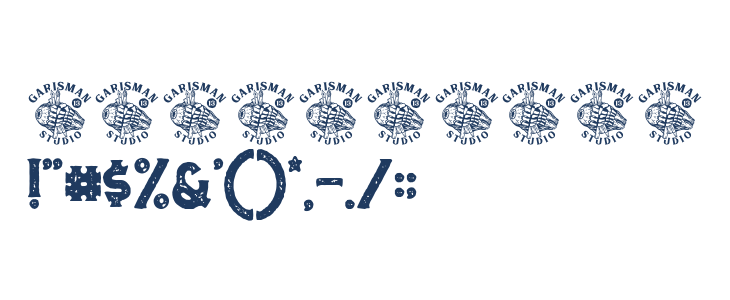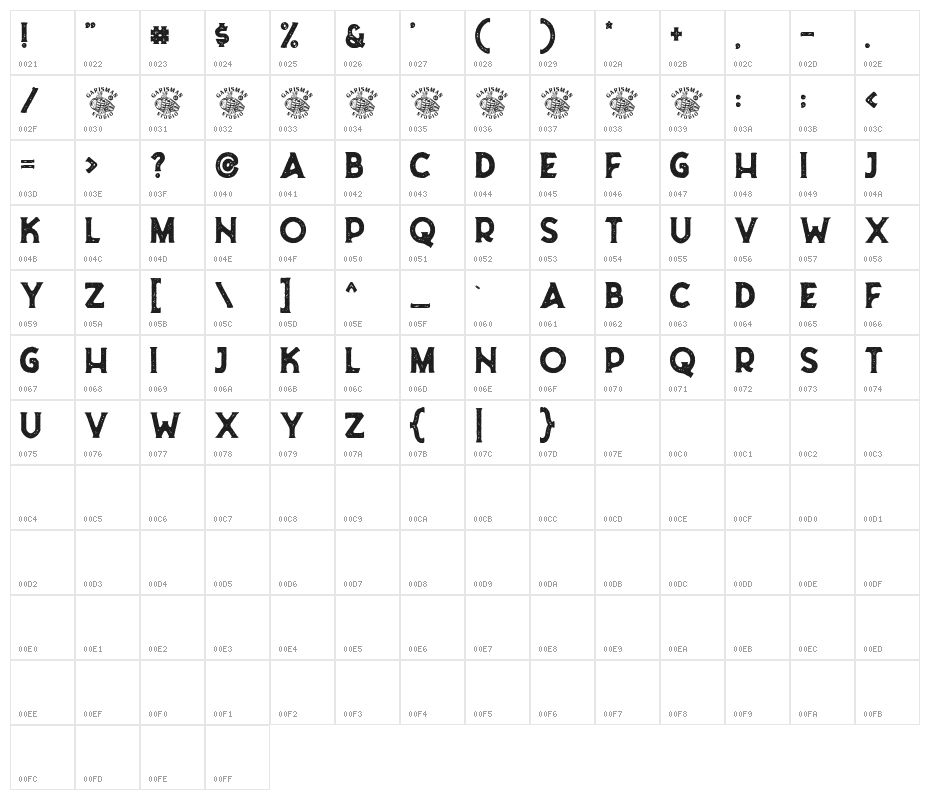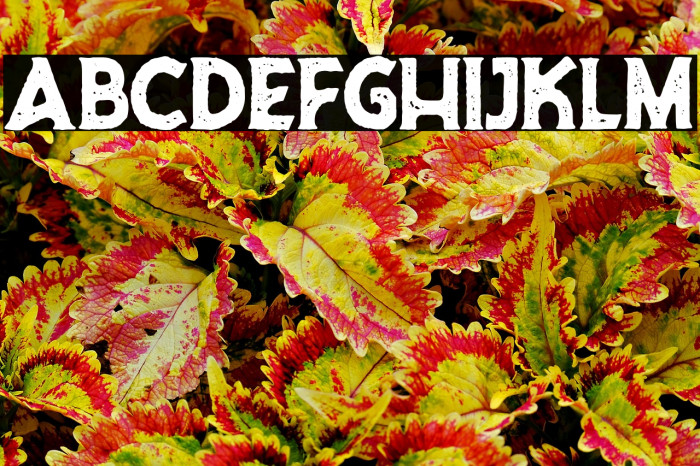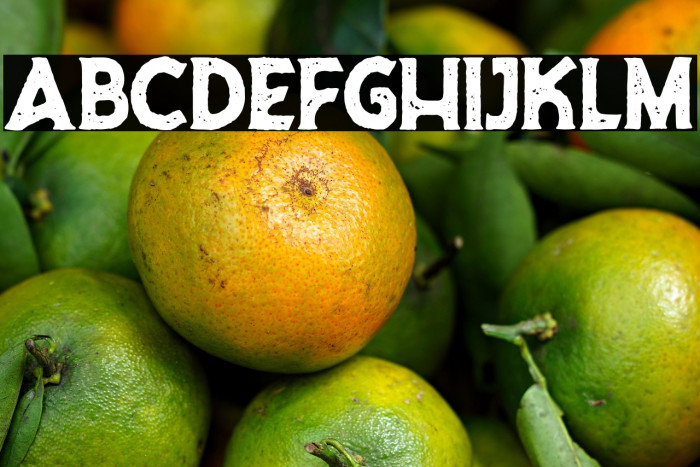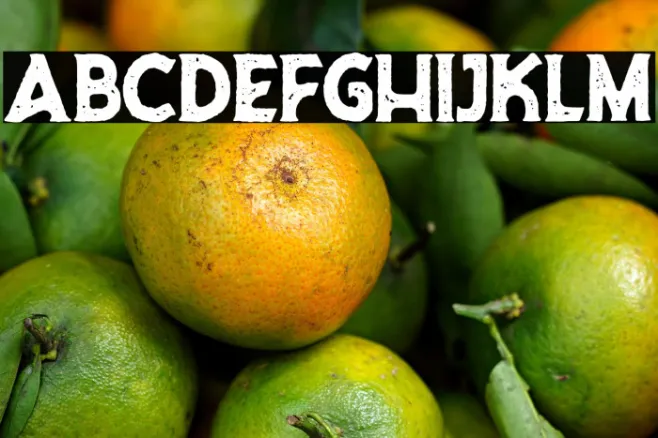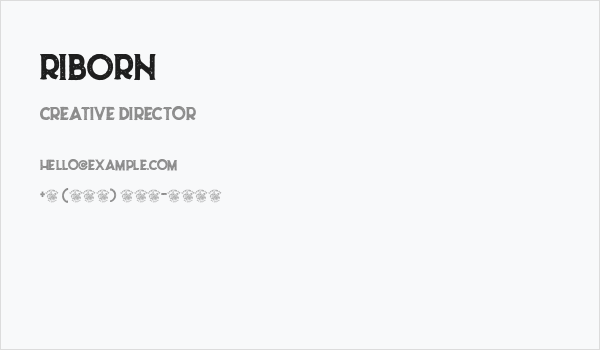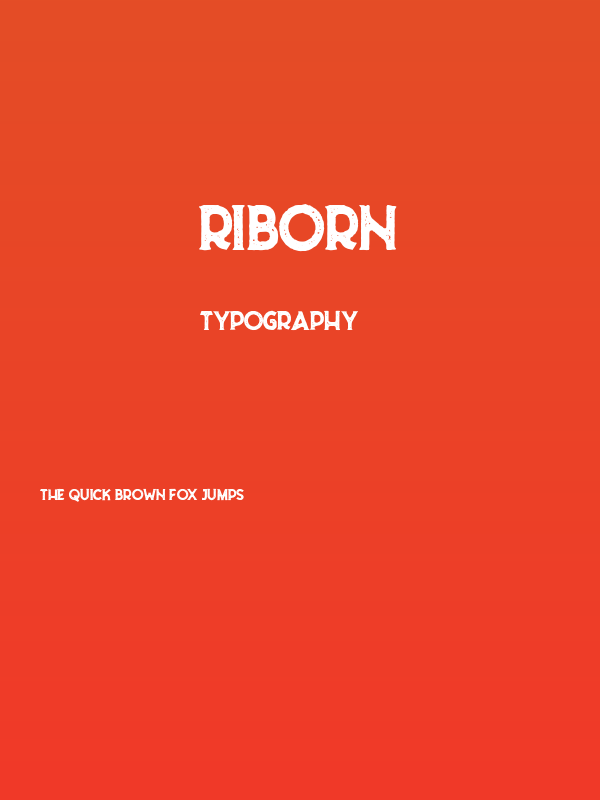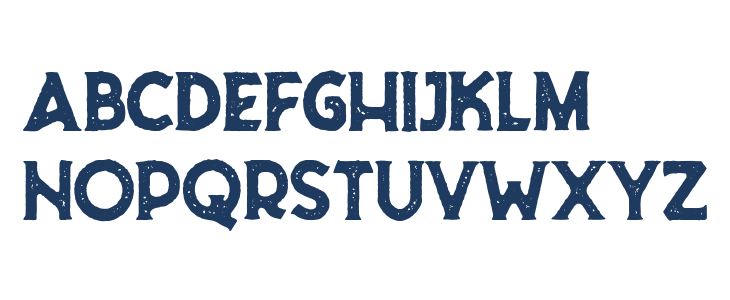
Riborn Font
Riborn Description
This font features a bold and rugged style with a distressed texture, giving it a vintage and handcrafted appearance. The characters are thick and sturdy, with slightly uneven edges that add to the rustic charm. The uppercase letters are prominent and impactful, making them suitable for attention-grabbing headlines. The lowercase letters maintain the same boldness, ensuring consistency throughout the text. The numbers and special characters are designed with the same distressed effect, providing a cohesive look across all elements. This font's unique style makes it ideal for projects that require a touch of nostalgia or a handcrafted feel.
| Proposed Projects | Ideal for vintage-themed posters, logos, branding, packaging, and apparel designs. |